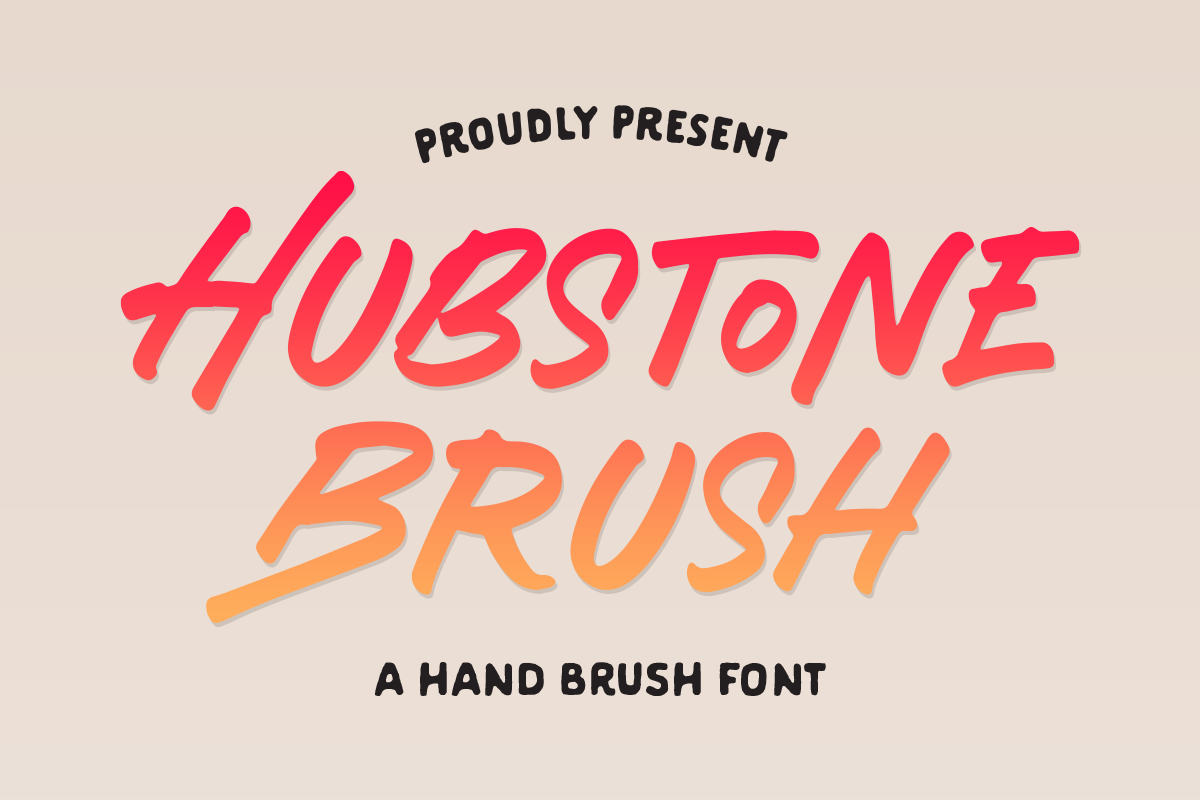
Hubstone Brush Font
The Hubstone Brush Font is perfect for a wide range of creative projects, including branding, logos, t-shirt designs, social media graphics, posters, and packaging. Its authentic hand-painted feel makes it an excellent choice for adding a personal and artistic touch to any design. Think of coffee shop menus, rustic wedding invitations, or creative blog headers—this font brings a unique character to every application.
What makes the Hubstone Brush Font so exciting is its raw, energetic texture. The brush strokes are visible and dynamic, giving your text a sense of movement and originality that's hard to achieve with more conventional fonts. It stands out in a crowded digital landscape by offering a genuine, handmade aesthetic. The font feels alive and expressive, making it ideal for projects that aim to connect with an audience on a more personal and heartfelt level. Its irregular baselines and varying character widths add to its charm, ensuring that no two words look exactly the same.
The Hubstone Brush Font family typically includes a full set of uppercase and lowercase letters, numbers, punctuation, and multilingual support. It often comes with a variety of ligatures and swashes that allow you to customize the look and feel of your text, adding extra flair and personality. This gives designers the flexibility to create truly unique and memorable typography. Whether you're using it for a single headline or a more elaborate text layout, its versatility and distinct style make it an invaluable tool in your design arsenal.